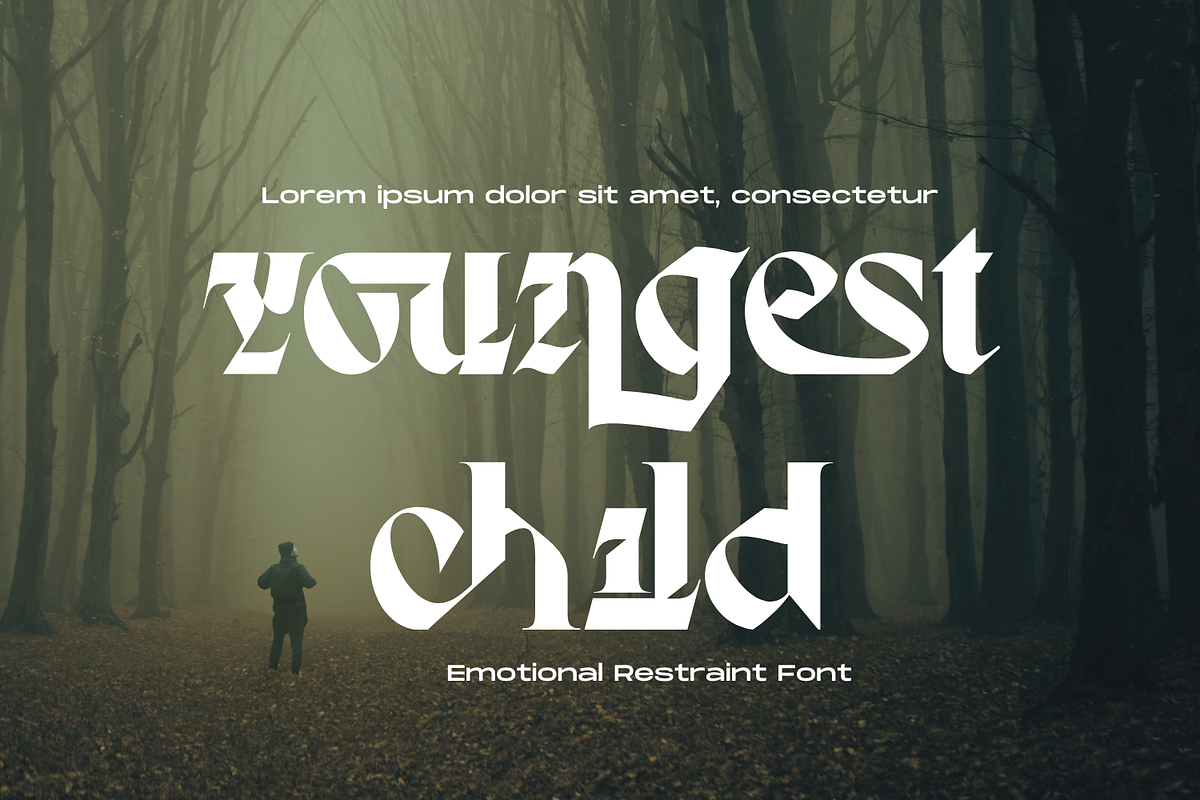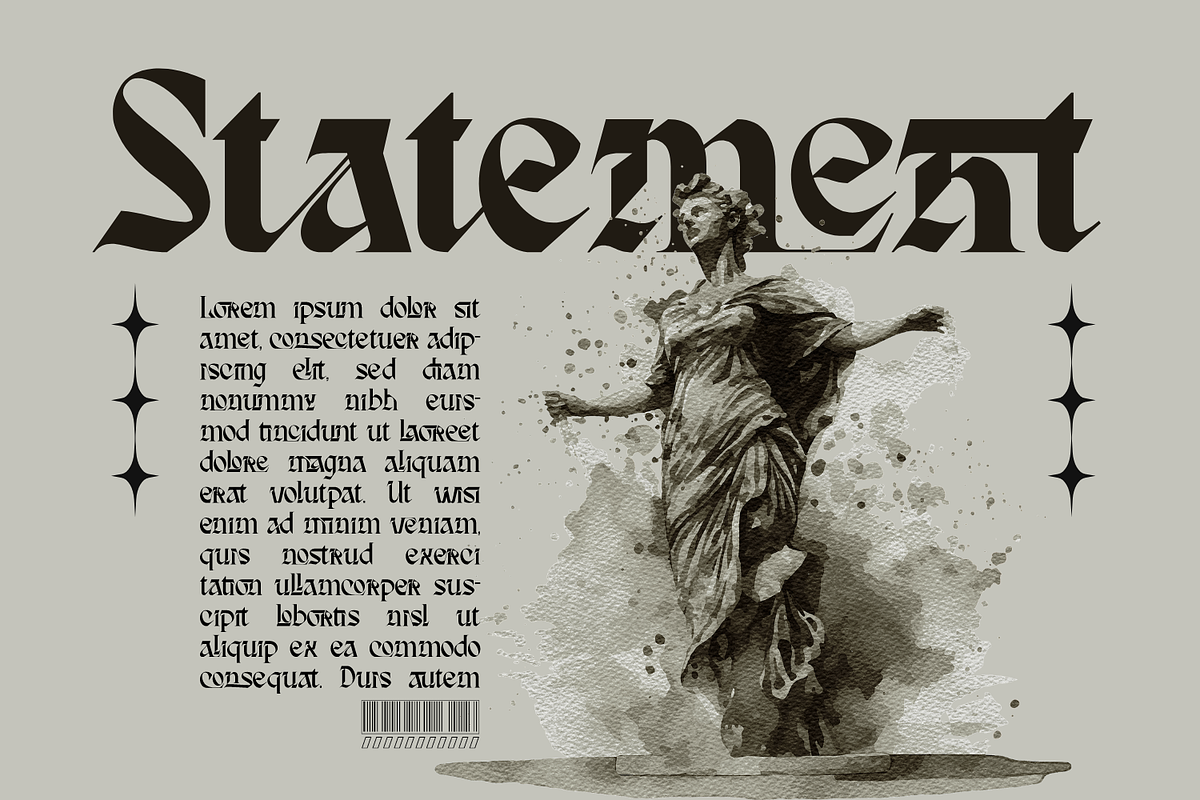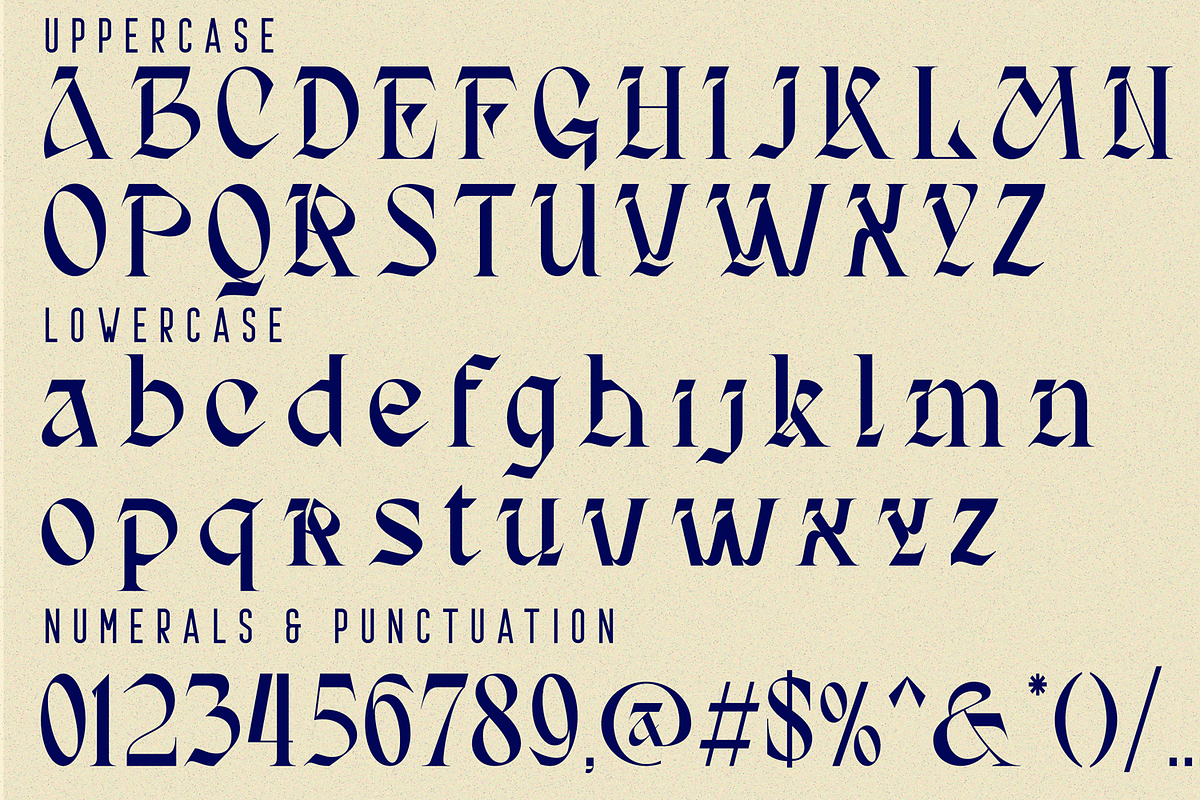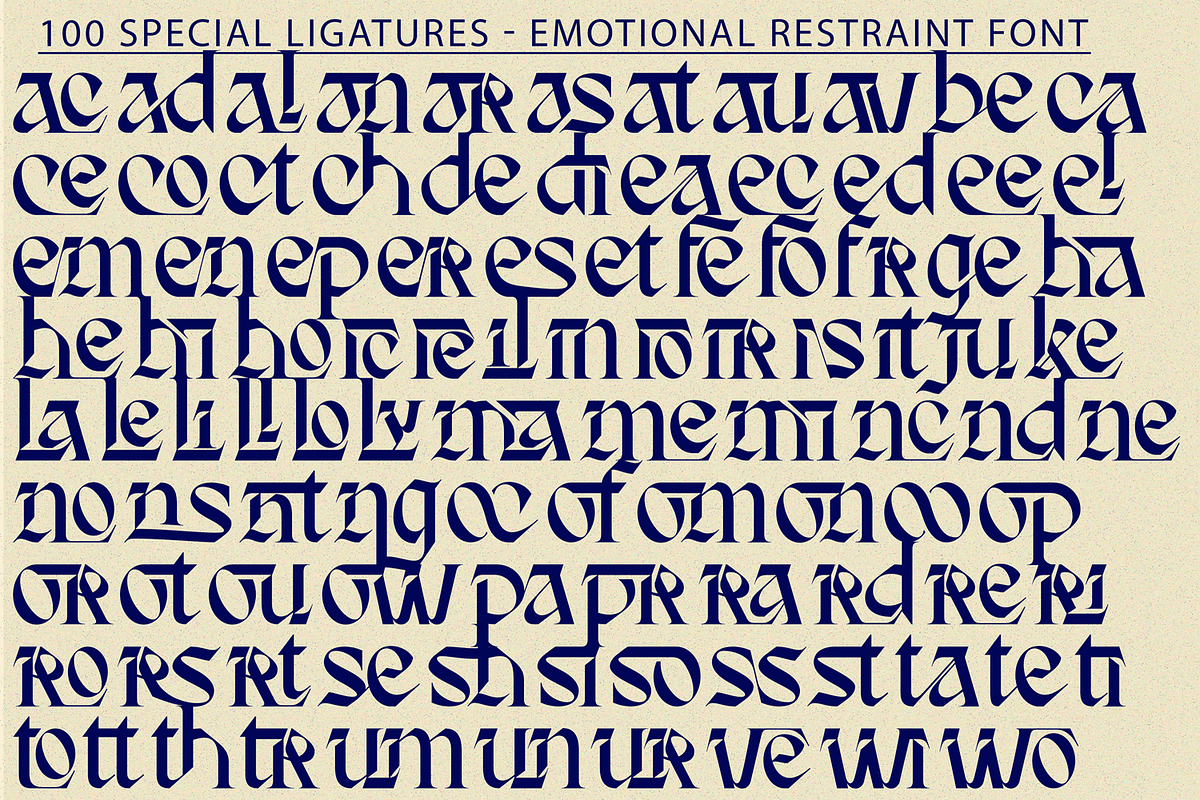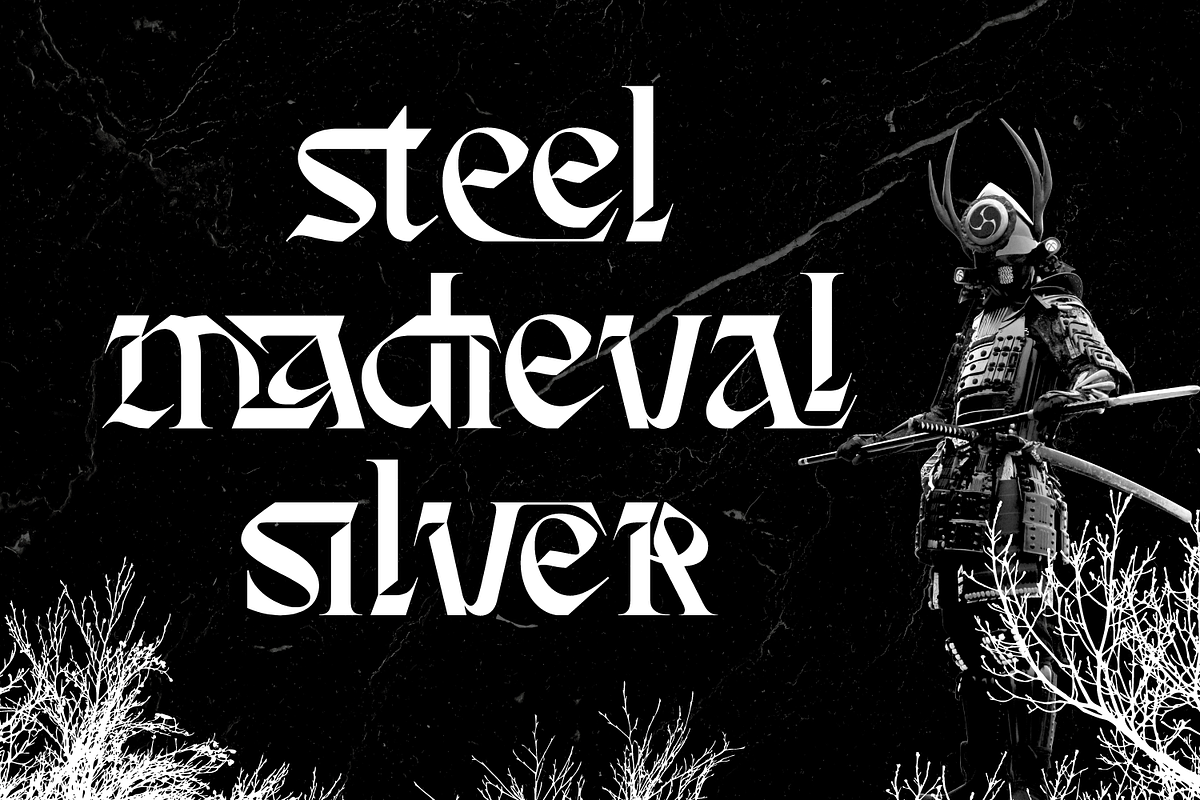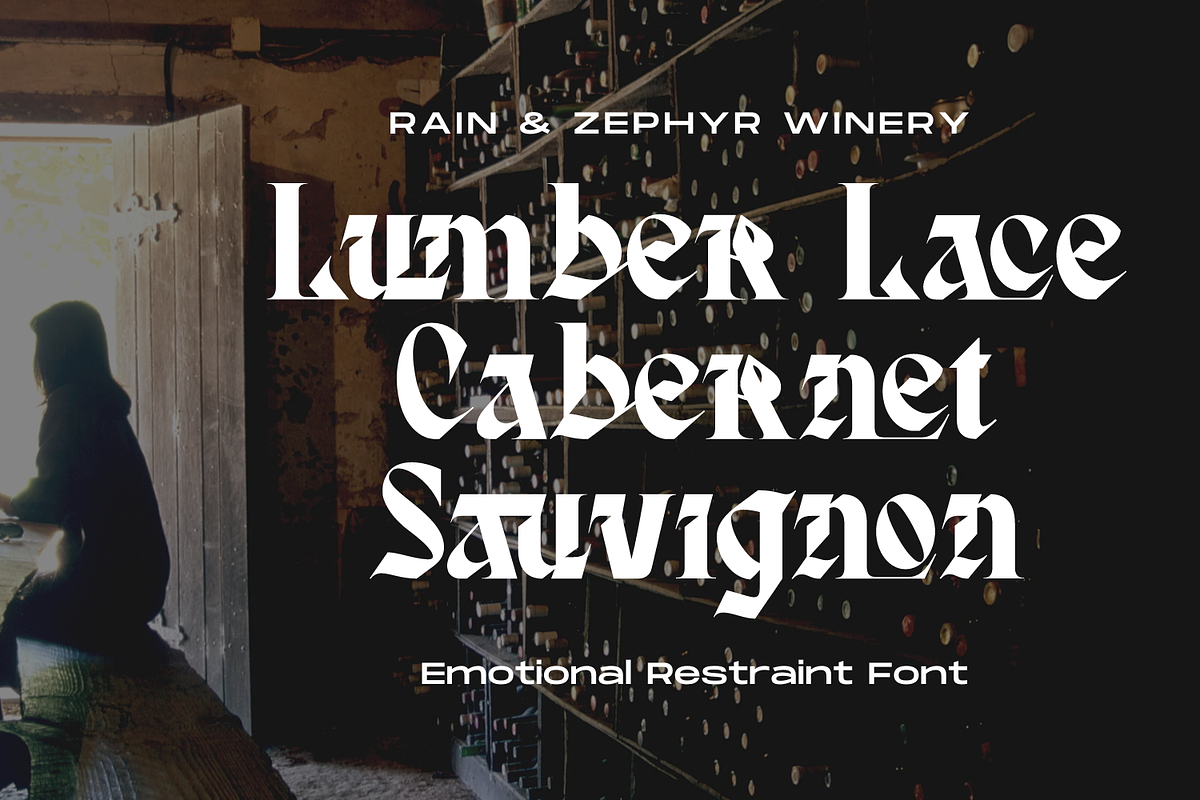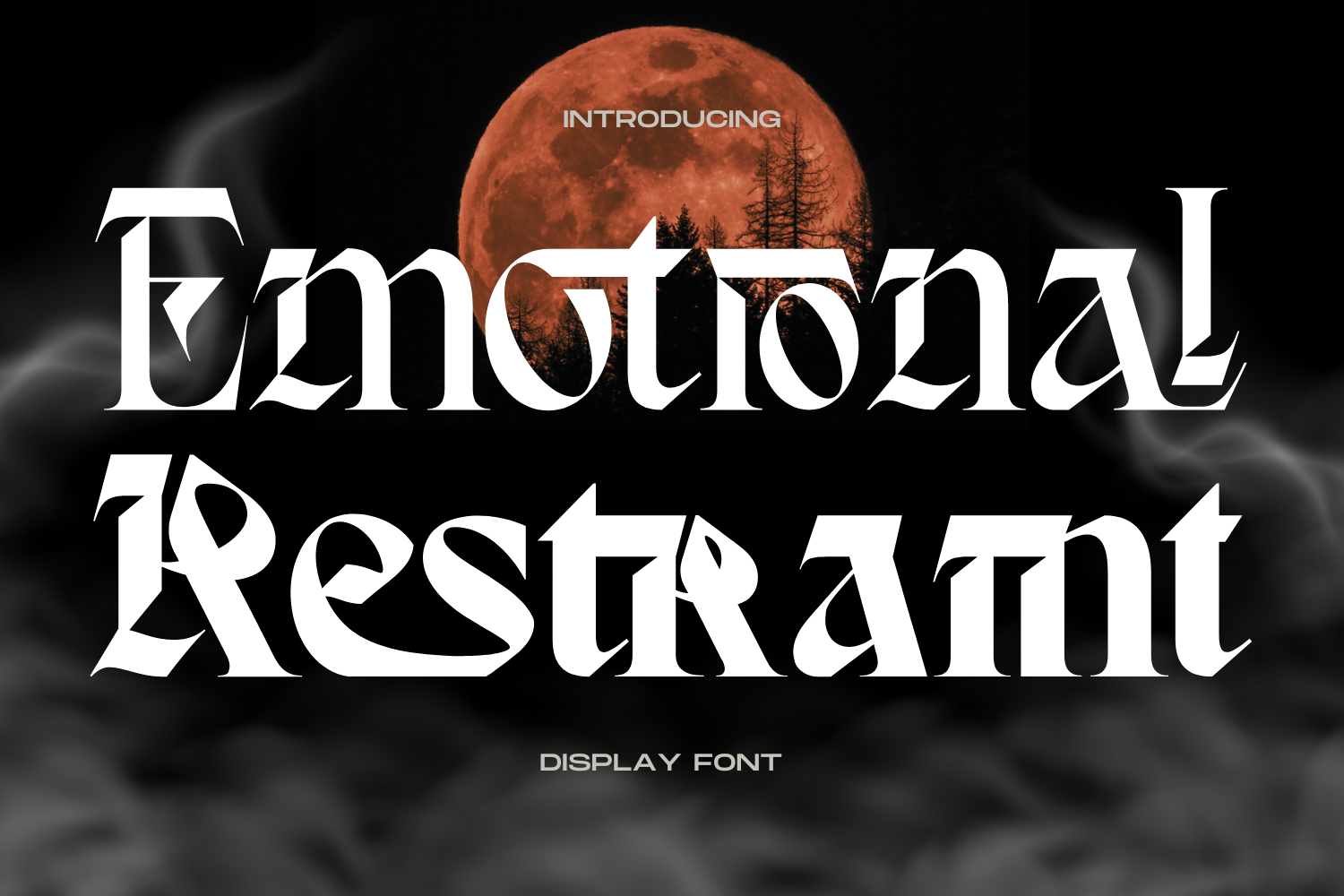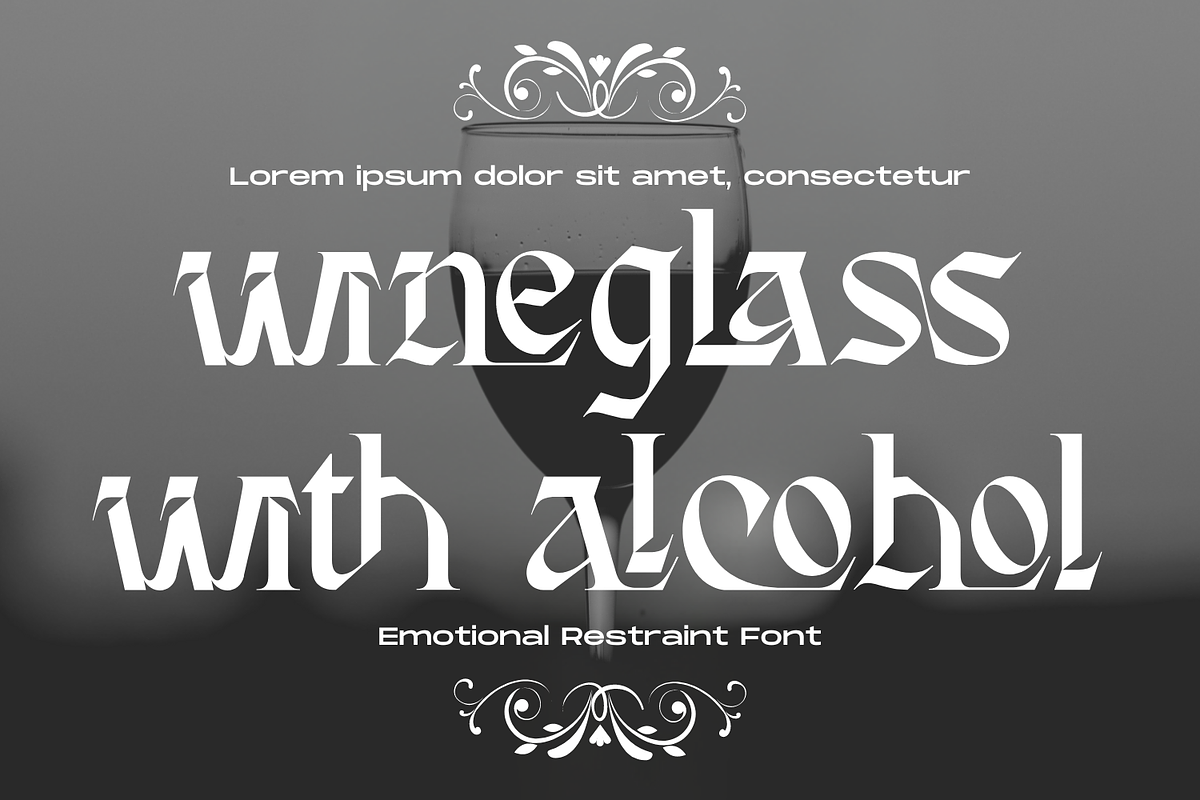
Emotional Restraint Font
Emotional Restraint Font is a Gothic display font that captures the essence of medieval art and architecture. Its dark, bold characteristics, sharp forms, and dominant vertical lines create a dramatic and powerful visual impact, ideal for projects aiming to convey a sense of mystery or historical depth. It has beautiful and well as a unique blend of ligatures a letter, so that the authors compose it with a and little swirly embedding, so that a modern font is formed and ready to make a statement by adding elegant and unique flair to your next design project.
Emotional Restraint was built with OpenType features and includes 100 ligatures, alternate, numbers, punctuation, and it also supports other languages.
ac ad al an ar as at au av be ca ce ch co ct de di ea ec ed ee el em en ep er es et fe fo fr ge ha he hi ho ie ic il in io ir is it ju ke la le li ll lo ly ma me mi nc nd ne ng no nt ns oc of om on oo op or ot ou ow pa pr ra rd re ri ro rs rt se sh si so ss st ta te th ti to tr tt um un ur ve wi wo